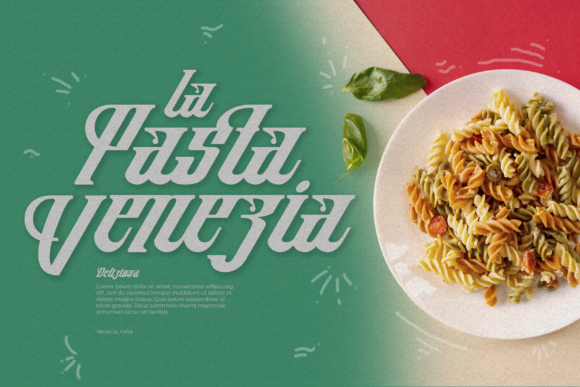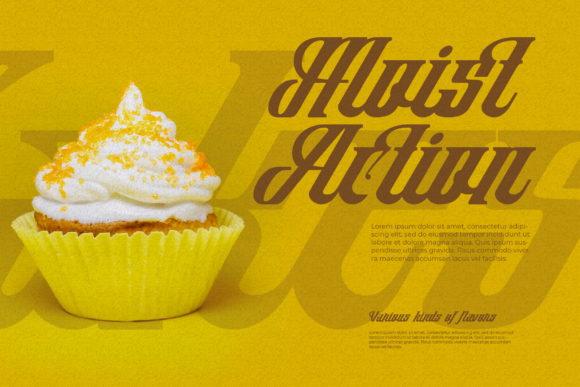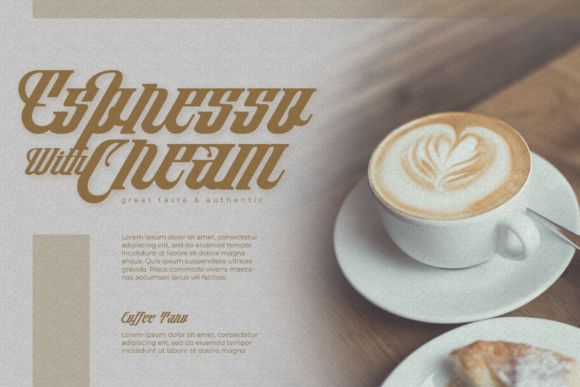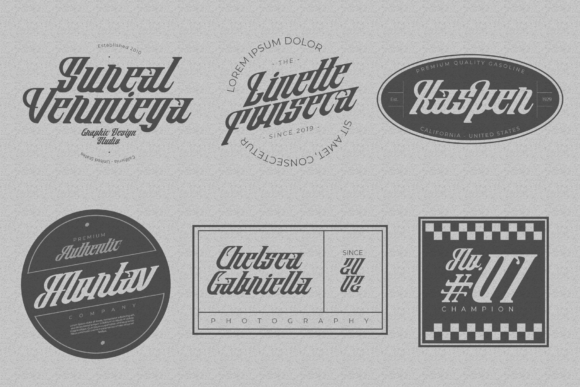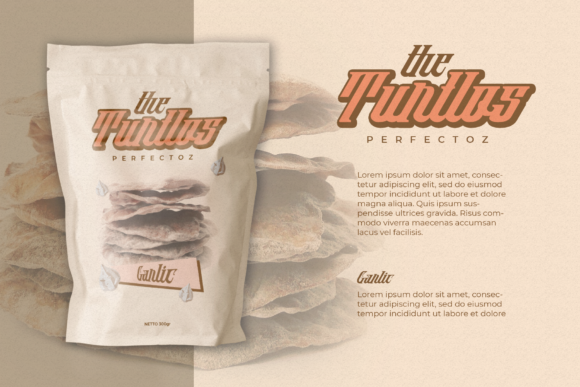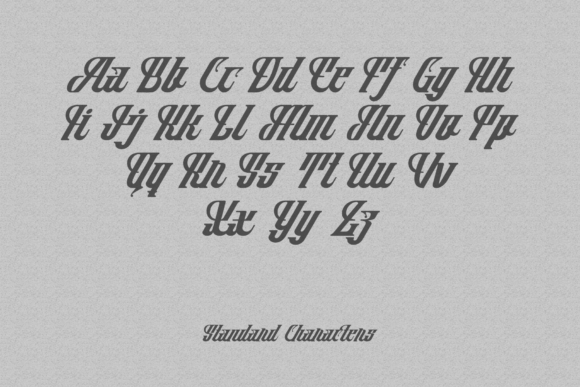
Bellavia Font: The Ultimate Guide to this Stunning Handwritten Script
Are you a designer or crafter looking for a font that can add a touch of romance and elegance to your projects? Look no further than Bellavia Font. This bold and ravishing handwritten font is perfect for a wide range of applications, from greeting cards to headlines, and is sure to make your designs stand out.
What is Bellavia Font?
Bellavia Font is a versatile script font that is characterized by its bold and flowing lines. It has a romantic feel that is perfect for designers and crafters who want to add a touch of elegance to their projects. Whether you’re creating a greeting card, a poster, or a website, Bellavia Font is sure to make your design look stunning.
Key Features of Bellavia Font
So, what makes Bellavia Font so special? Here are some of its key features:
- Bold and Ravishing: Bellavia Font is a bold and eye-catching font that is sure to grab attention.
- Handwritten: This font has a handwritten feel that gives it a personal and unique touch.
- Versatile: Bellavia Font can be used for a wide range of applications, from greeting cards to headlines.
- Romantic: This font has a romantic feel that is perfect for designers and crafters who want to add a touch of elegance to their projects.
Applications of Bellavia Font
Bellavia Font is a versatile font that can be used for a wide range of applications. Here are some ideas to get you started:
- Greeting Cards: Bellavia Font is perfect for creating beautiful and elegant greeting cards for special occasions.
- Headlines: This font is great for creating eye-catching headlines for posters, flyers, and other marketing materials.
- Wedding Invitations: Bellavia Font is a popular choice for wedding invitations and other wedding-related materials.
- Signage: This font can be used for signage, including store signs, restaurant signs, and more.
Tips for Using Bellavia Font
Here are some tips for using Bellavia Font in your designs:
- Use it sparingly: Bellavia Font is a bold font, so it’s best to use it sparingly to avoid overwhelming your design.
- Pair it with other fonts: This font pairs well with other fonts, including serif and sans-serif fonts.
- Experiment with colors: Bellavia Font looks great in a variety of colors, so don’t be afraid to experiment.
Bellavia Font is a stunning handwritten script font that is perfect for designers and crafters who want to add a touch of romance and elegance to their projects. With its bold and flowing lines, this font is sure to make your designs stand out. Whether you’re creating a greeting card, a poster, or a website, Bellavia Font is a great choice.